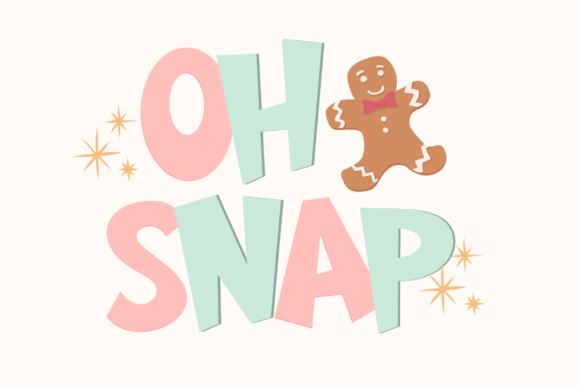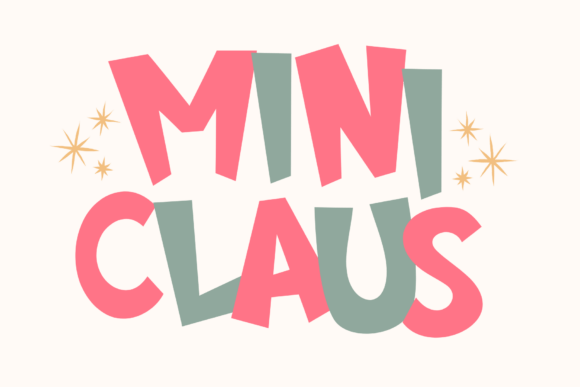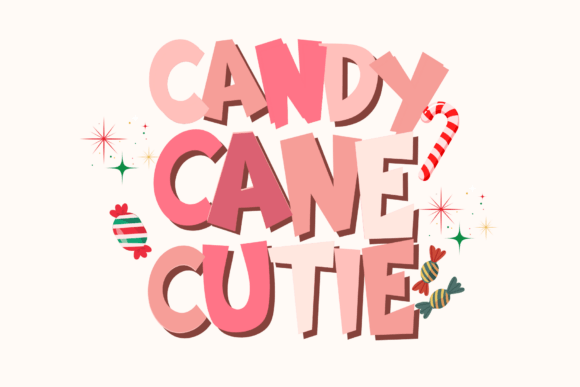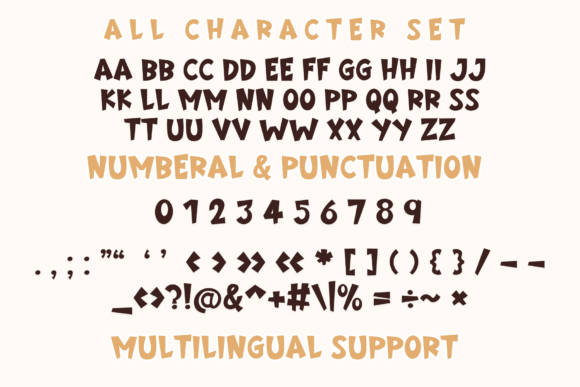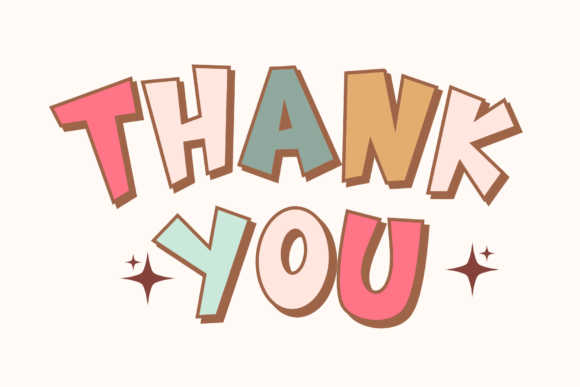
Funky Christmas Font: Add a Dash of Playfulness to Your Holiday Designs
Are you looking for a font that captures the essence of a fun and playful Christmas? Look no further than the Funky Christmas Font! This delightful font embodies the spirit of a funny Christmas, making it the perfect choice for designers and crafters who want to add a dash of whimsy to their holiday projects.
What is Funky Christmas Font?
Funky Christmas Font is a unique and creative typeface that is specifically designed to bring a smile to people’s faces. Its playful and authentic style makes it an excellent choice for a wide range of projects, from blog posts and social media graphics to logos, branding, and advertisements.
The Funky Christmas Font is incredibly versatile and can be used for various holiday-themed projects, such as:
- Blog Posts: Add a touch of playfulness to your holiday blog posts, making them more engaging and fun to read.
- Logos and Branding: Create a unique and memorable brand identity with this funky font, perfect for holiday-themed businesses or products.
- Ads and Invitations: Grab attention with this eye-catching font, ideal for holiday advertisements, invitations, and greeting cards.
- Planners and Photo Albums: Add a personal touch to your holiday planners, photo albums, and scrapbook pages with this delightful font.
- Decorations: Use the Funky Christmas Font to create festive decorations, such as garlands, banners, and signs.
Why Choose Funky Christmas Font?
So, why should you choose the Funky Christmas Font for your holiday projects? Here are just a few reasons:
- Playfulness: This font embodies the playful spirit of Christmas, making it perfect for projects that require a fun and lighthearted touch.
- Authenticity: The Funky Christmas Font has a genuine and authentic feel, ensuring that your projects look and feel festive and holiday-themed.
- Versatility: This font can be used for a wide range of projects, from digital designs to print materials.
Tips for Using Funky Christmas Font
To get the most out of the Funky Christmas Font, here are some tips to keep in mind:
- Mix and Match: Combine the Funky Christmas Font with other fonts to create a unique and visually appealing design.
- Experiment with Colors: Try out different color schemes to find the perfect combination that complements the font.
- Keep it Simple: Don’t overcomplicate your design – let the font speak for itself and be the focal point of your project.